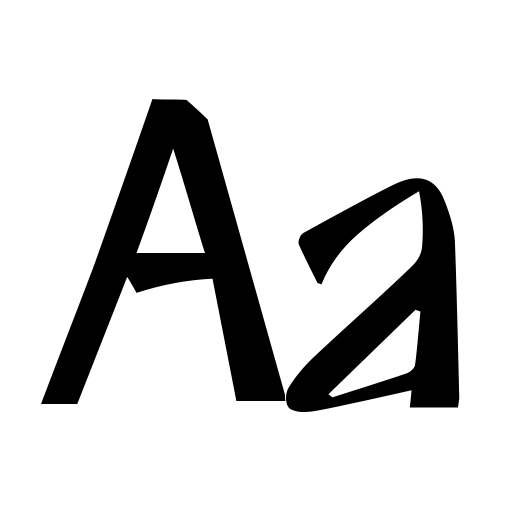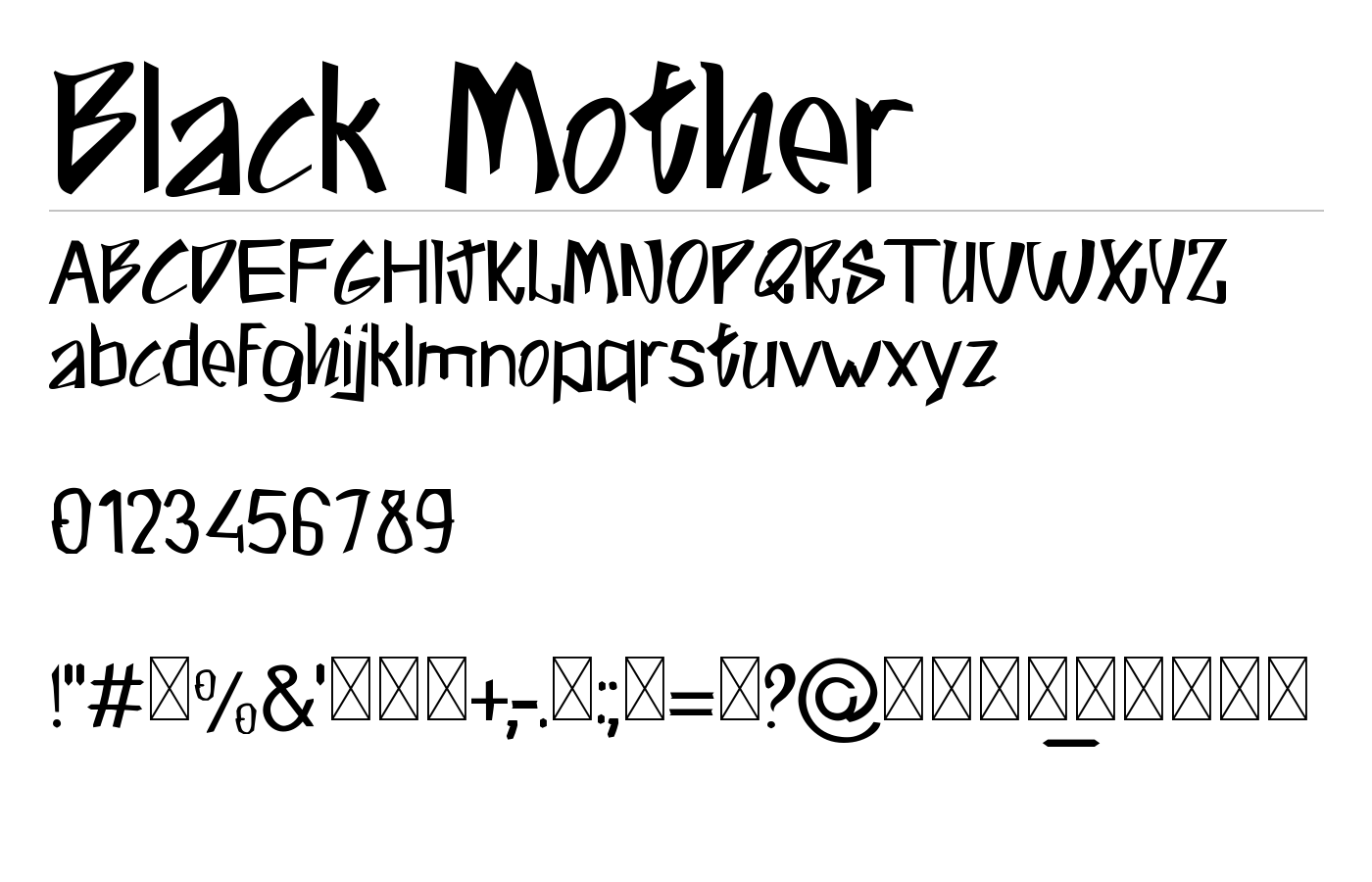
Black Mother is a playful and quirky sans serif font with uneven, hand-drawn letterforms that give it a casual, artistic vibe. Its irregular shapes and varied stroke widths create a lively and dynamic feel, making it great for creative projects, informal branding, and fun headlines where personality and uniqueness are key. This font works best in designs seeking to stand out with a spontaneous and expressive touch.
Black Mother Font
About Black Mother Font
| Designer | Audiprasetya |